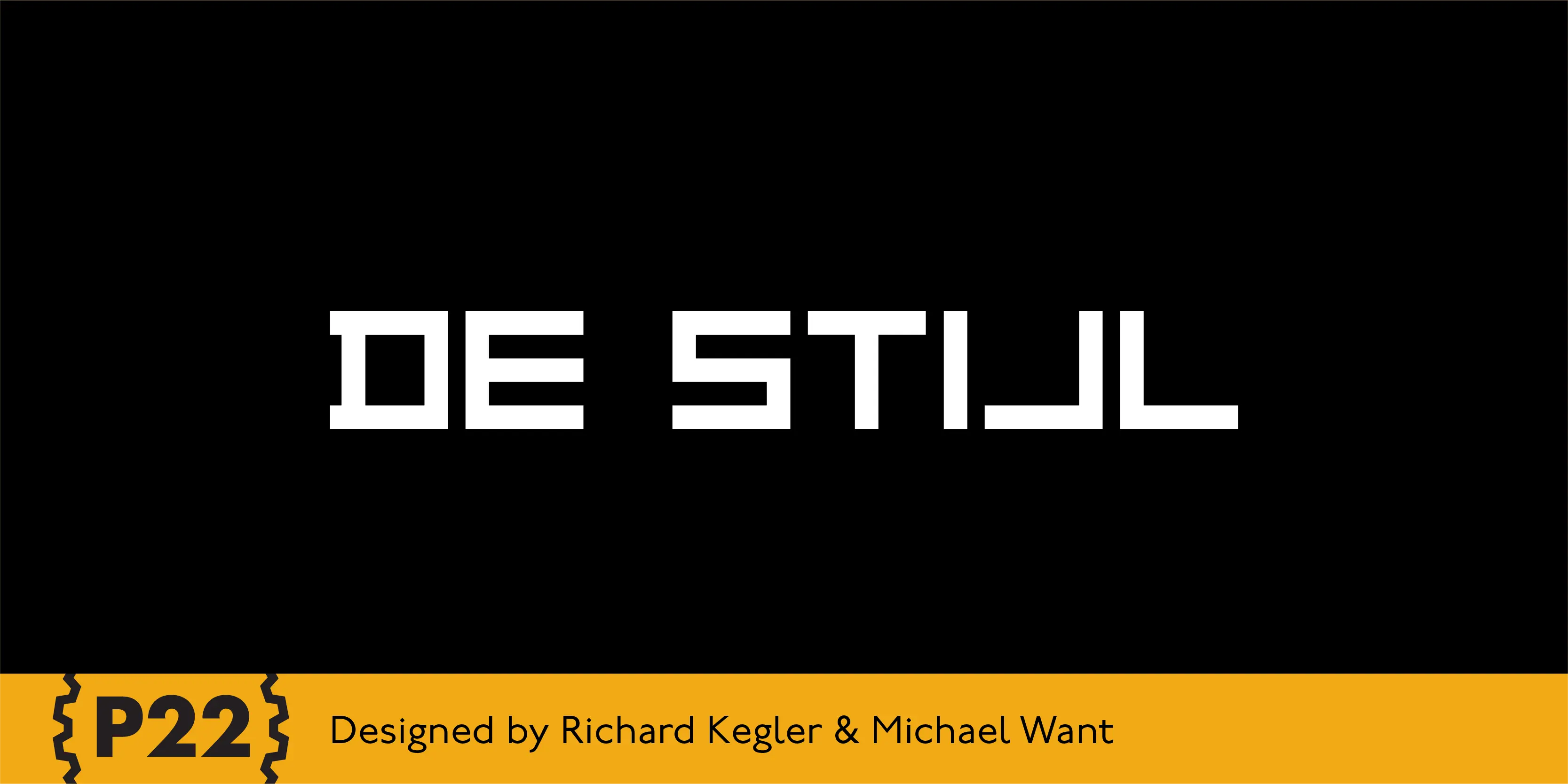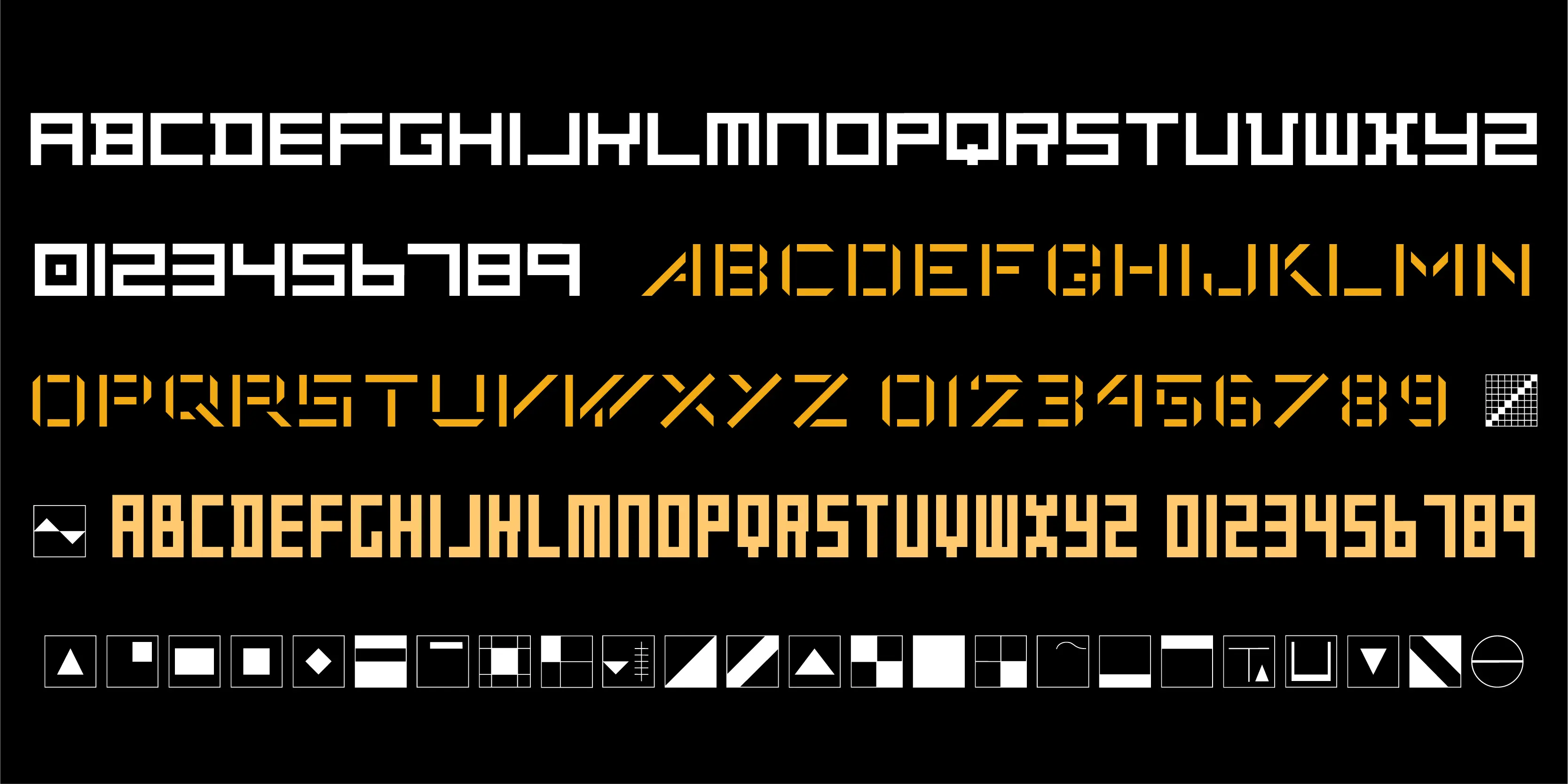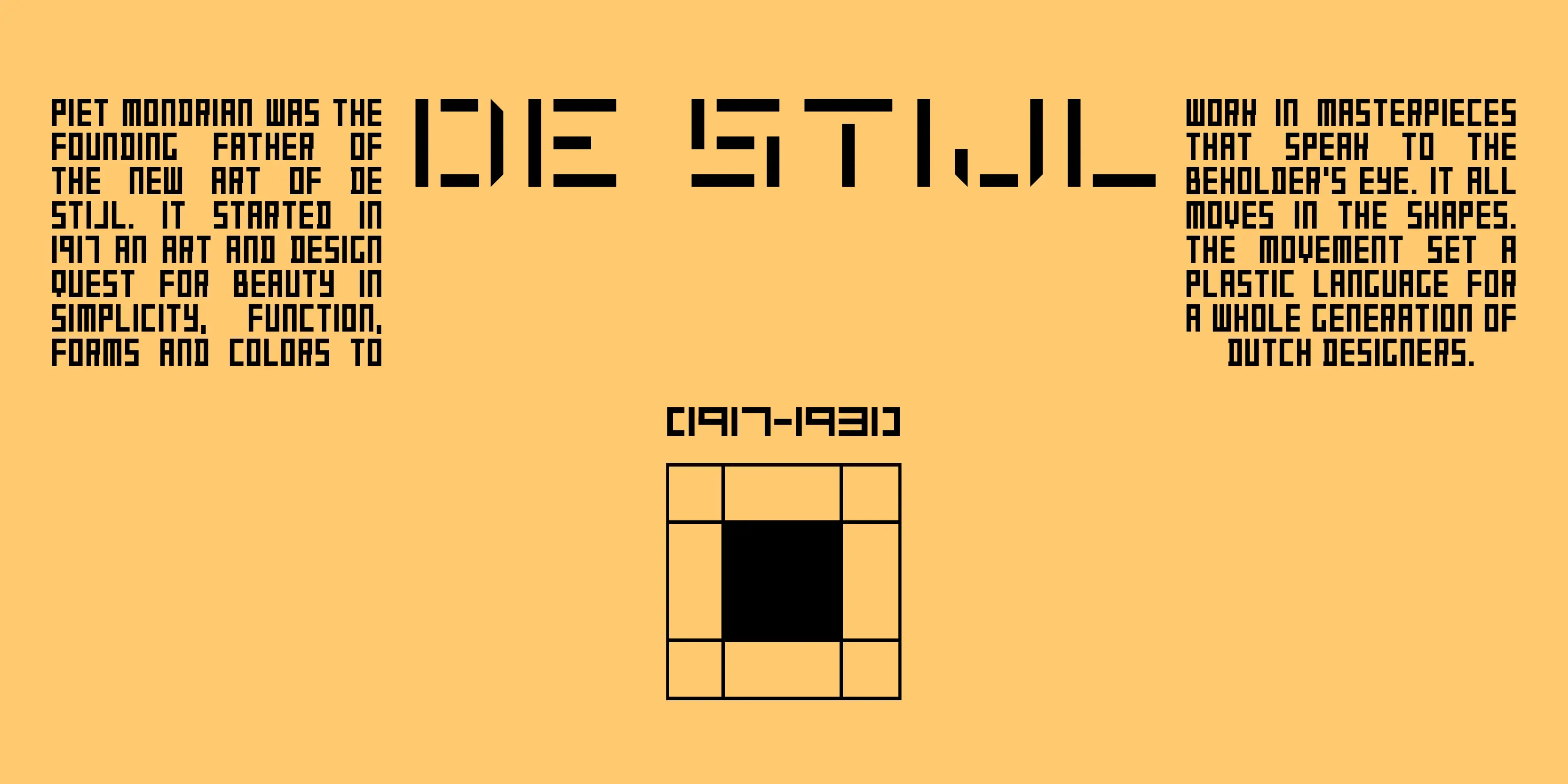
De Stijl Fonts
De Stijl Regular
De Stijl Stencil
De Stijl Tall
De Stijl Extras
De Stijl
The Dutch De Stijl movement (1917–1931) sought to create an art which took abstraction to its logical extreme, as exhibited in the paintings of Piet Mondrian. Inspired by the movement’s philosophy of pure form, P22’s De Stijl set features three rigid, balanced, and angular fonts and a set of geometric extras.